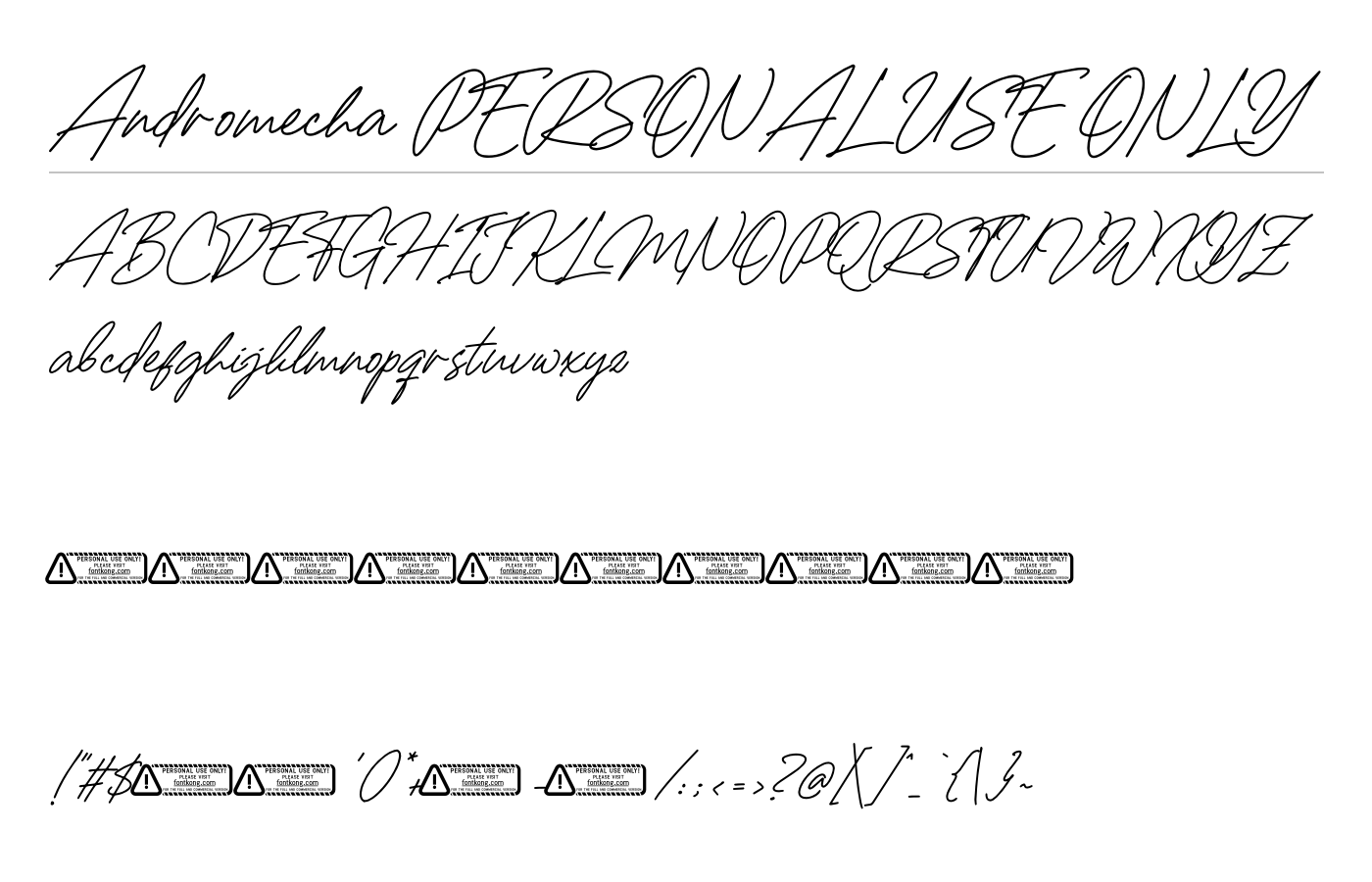
Andromecha PERSONAL USE ONLY is a delicate, elegant script font with a light, flowing stroke that mimics natural handwriting with a modern twist. Its slender letterforms and dynamic slant convey a sense of sophistication and personal touch, making it ideal for stylish invitations, branding, and artistic projects seeking a graceful yet contemporary feel. This font works beautifully in headlines or decorative text where an intimate, refined aesthetic is desired.
Andromecha PERSONAL USE ONLY Font
About Andromecha PERSONAL USE ONLY Font